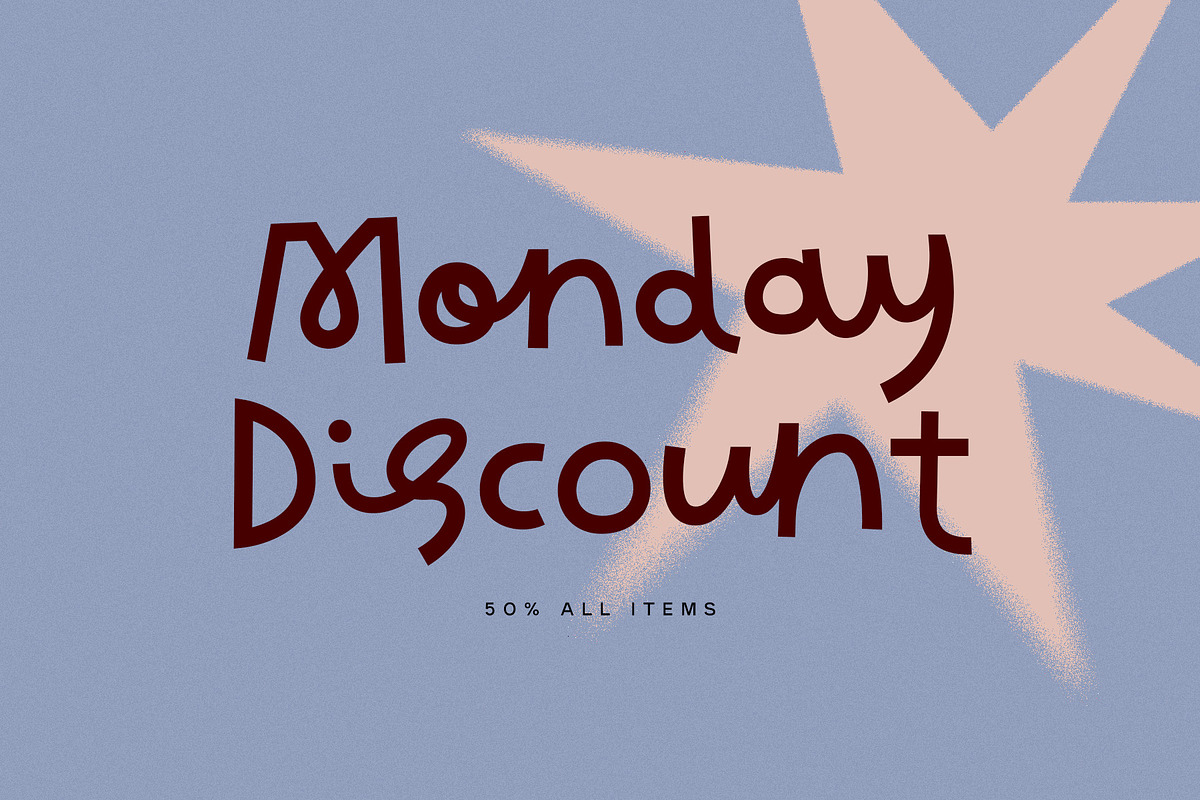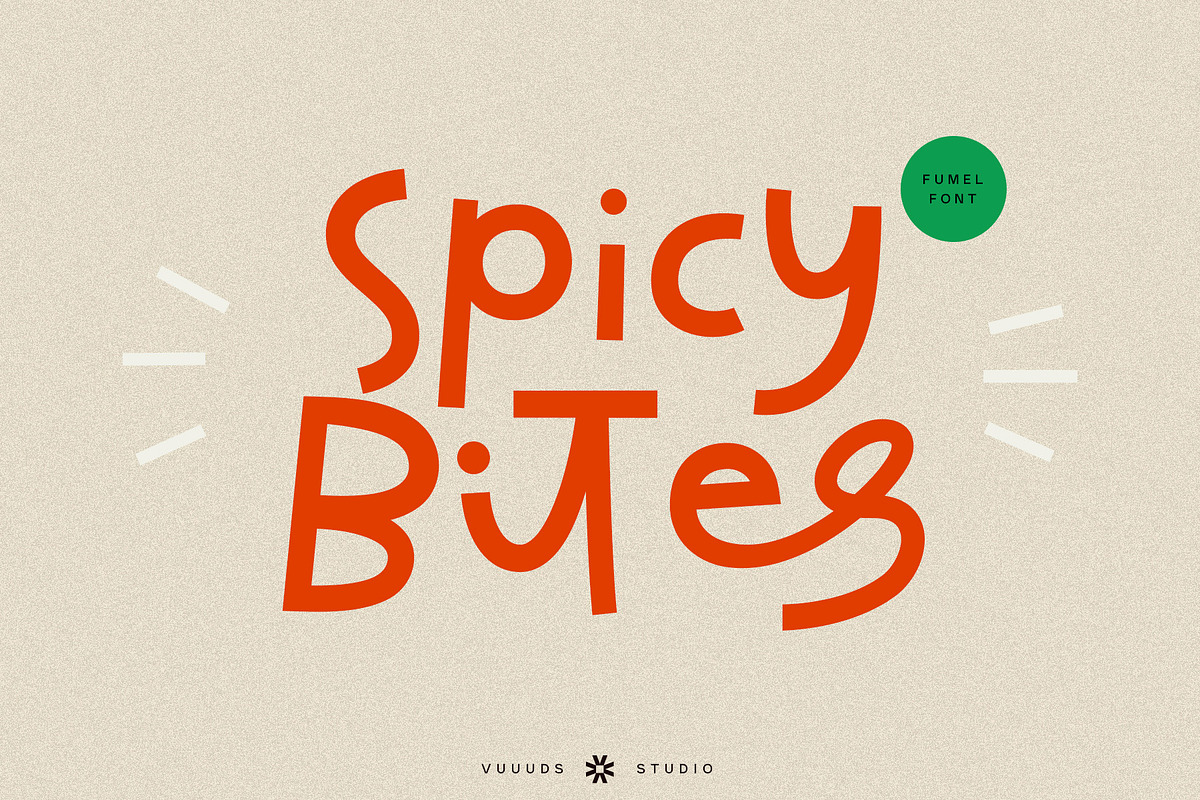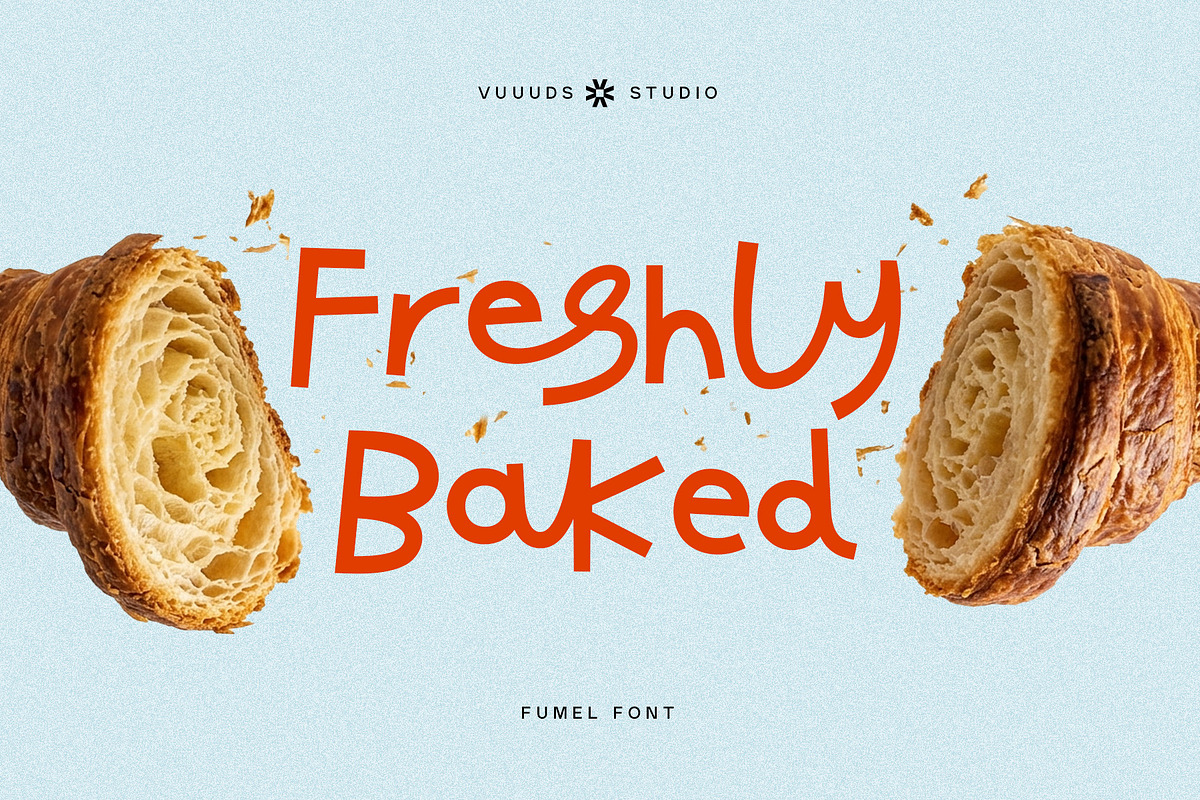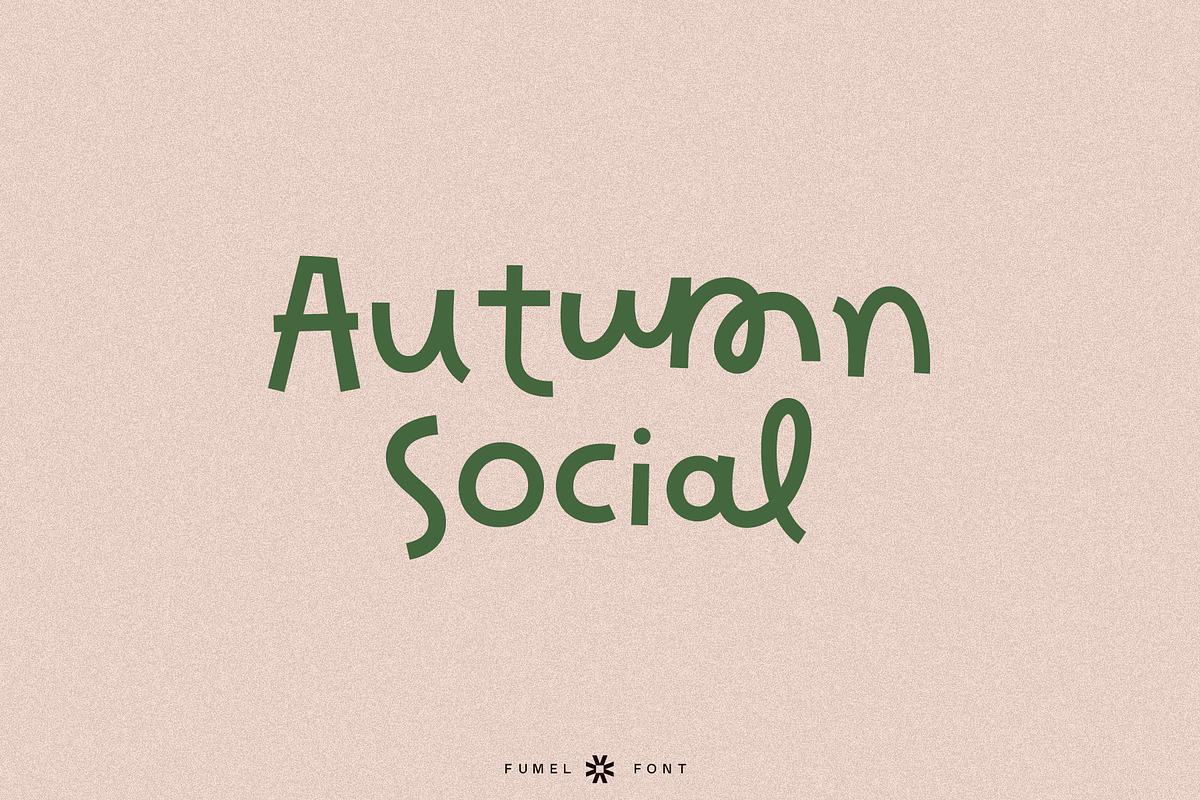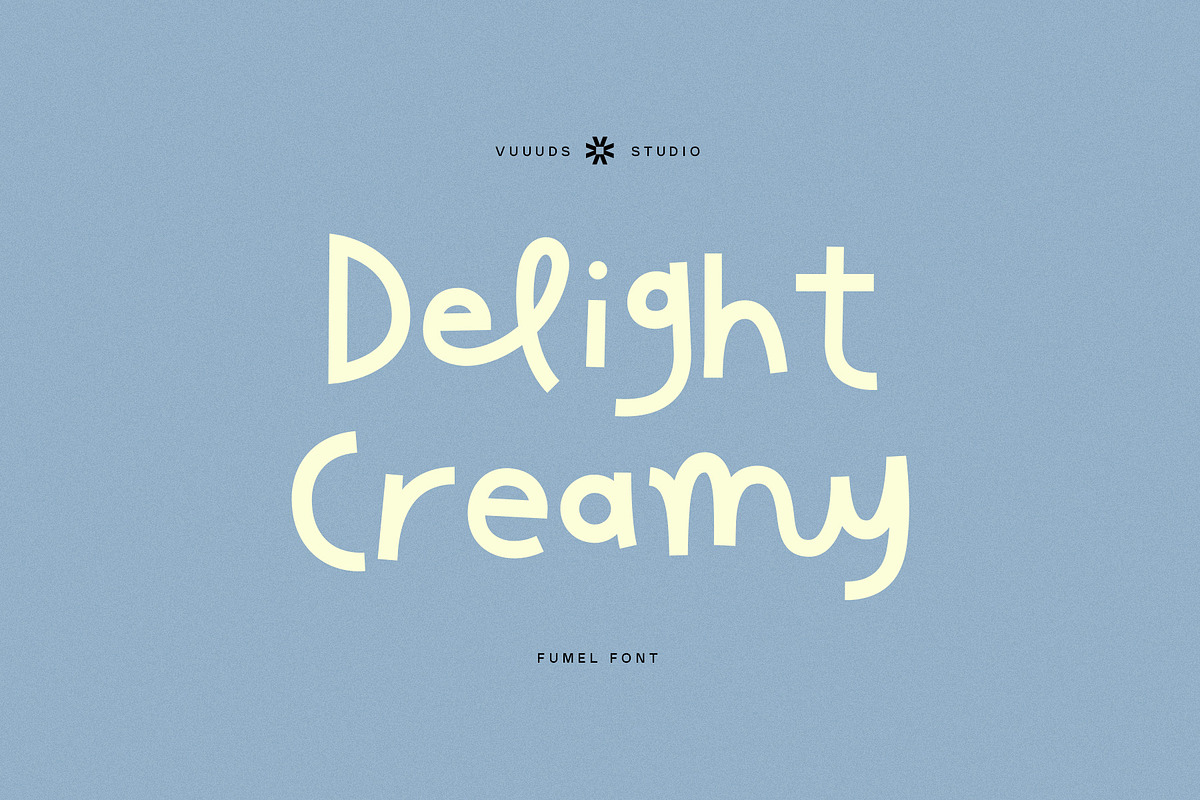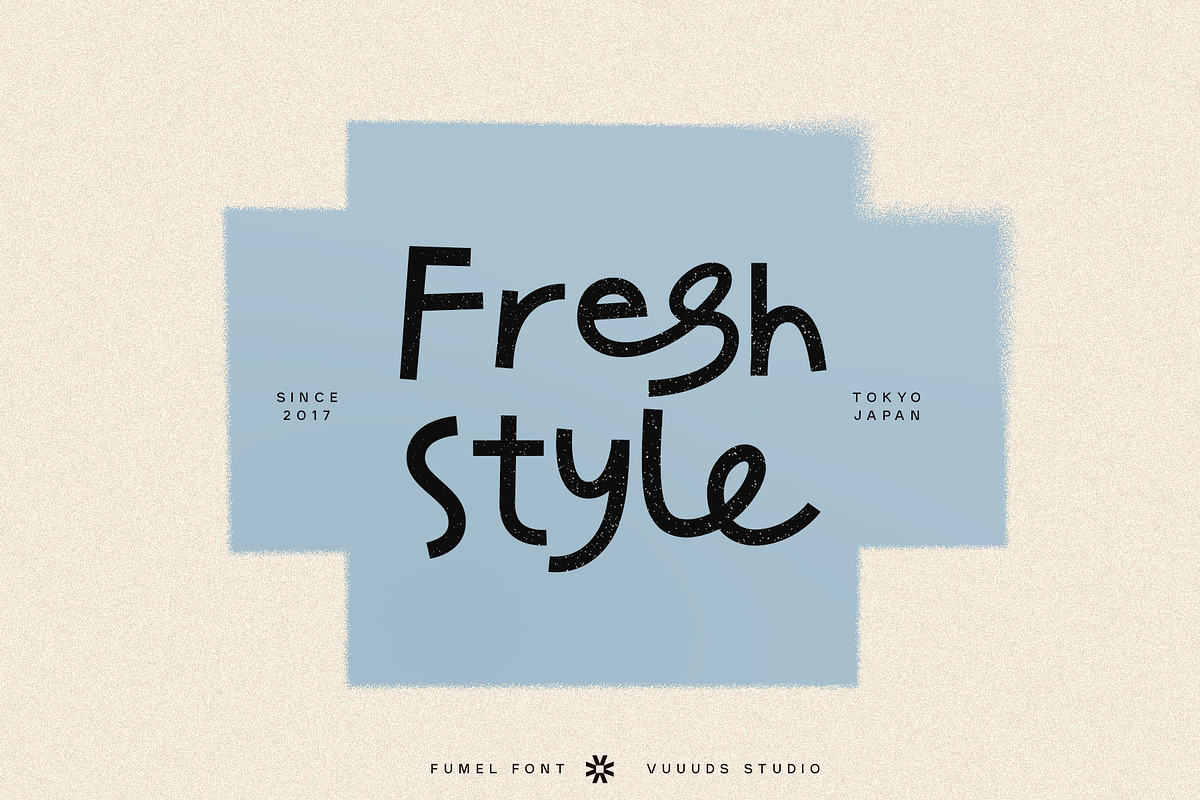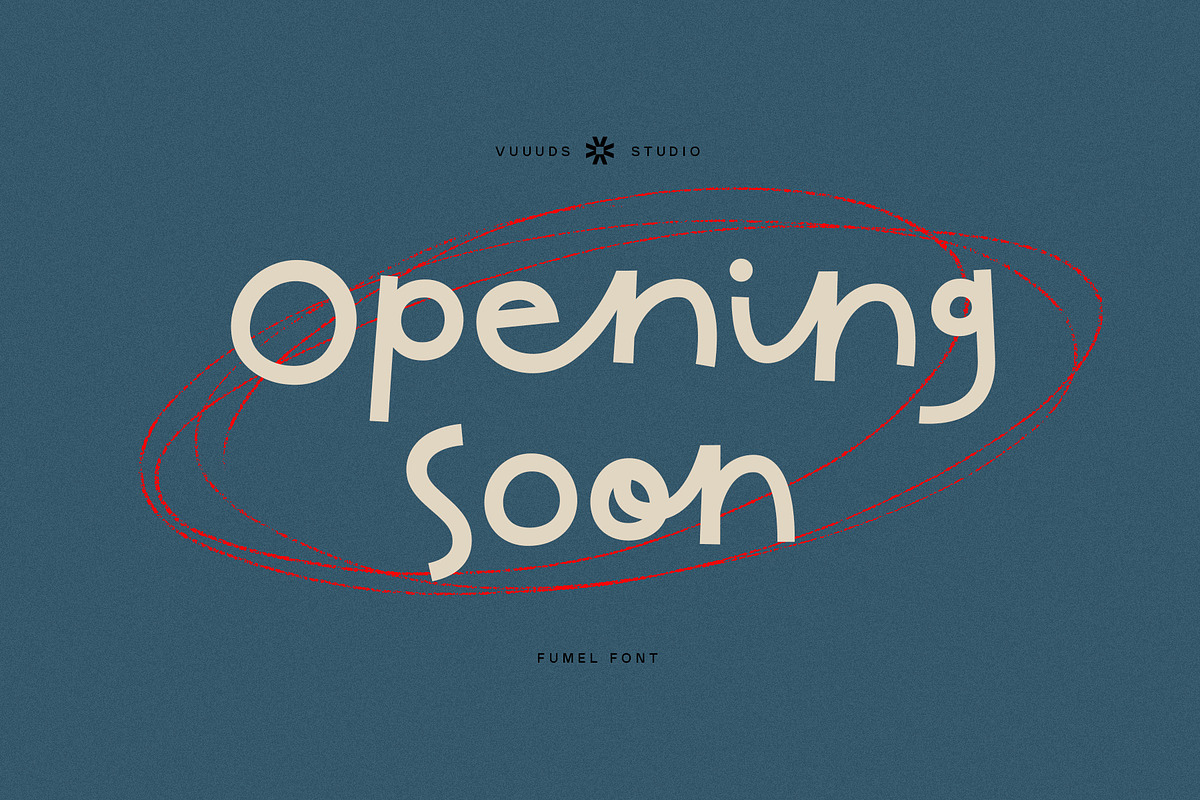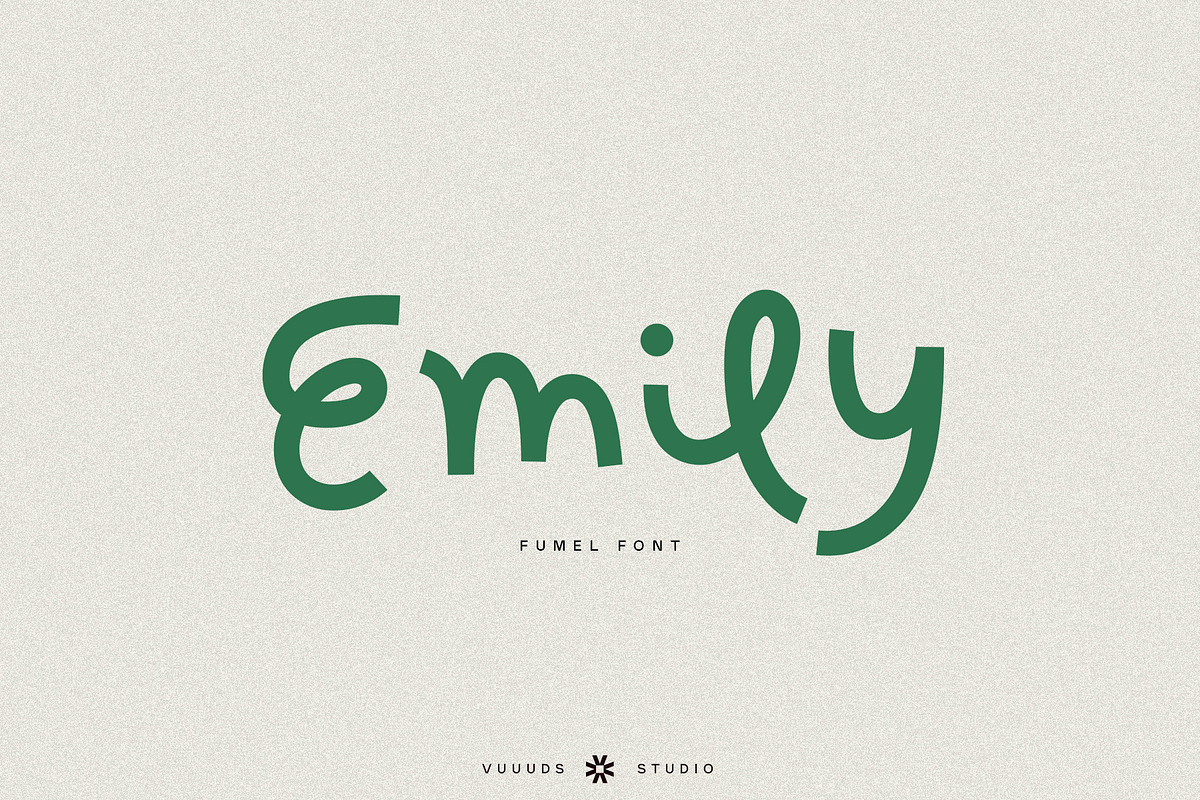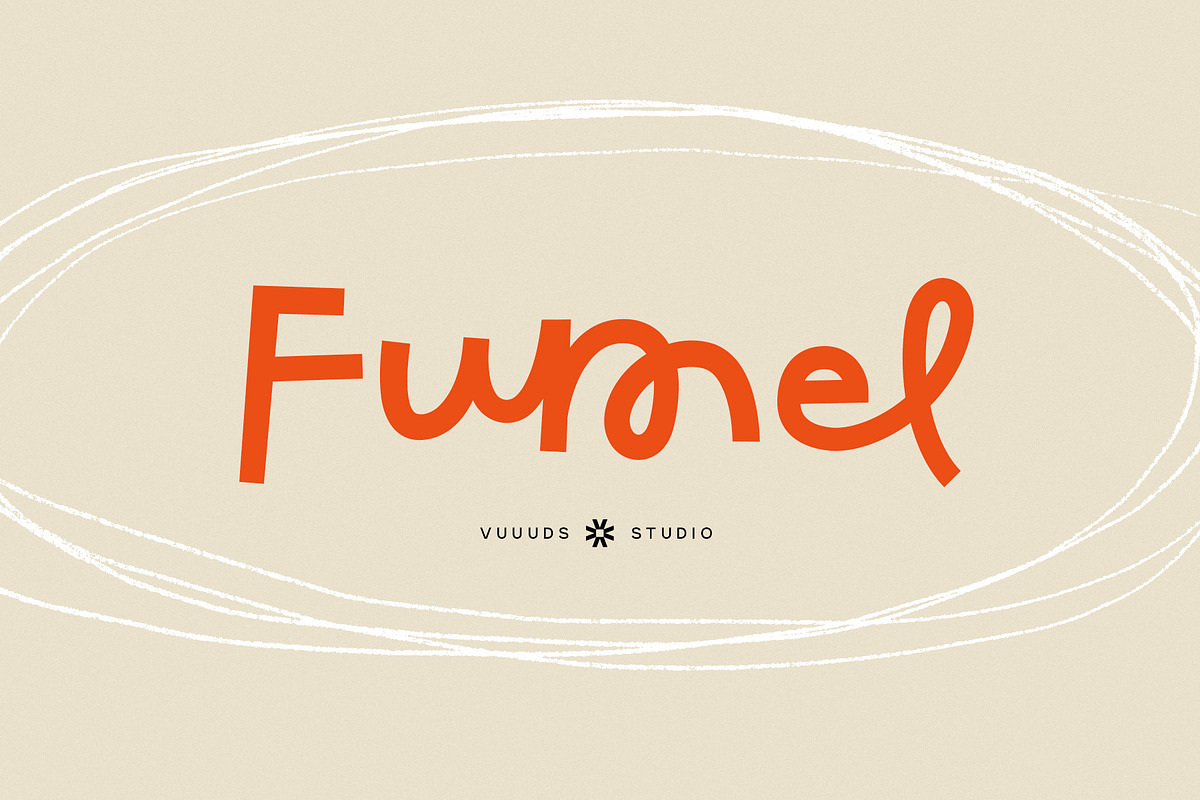
Fumel
Looking for that perfect balance between clean lines and handwritten flair? Fumel is a semi-monoline script font designed to bring your creative ideas to life. From sleek signature logos to aesthetic cafe signages and bold typography titles, Fumel offers a timeless, versatile look that fits seamlessly into any design brief.